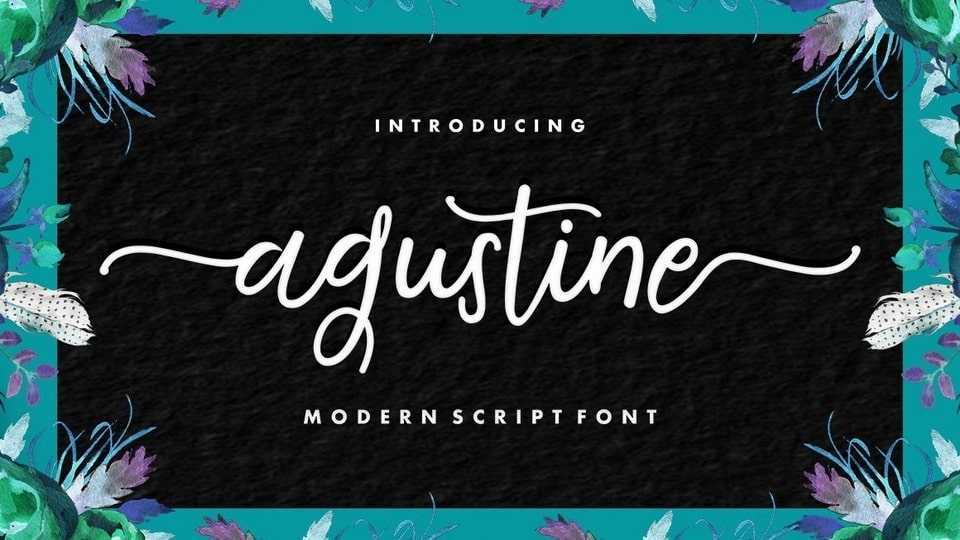
Download Agustine font, a lovely, modern calligraphic script. It features dynamic and pretty swashes and can be used for various purposes, such as titles, signatures, logos, wedding invitations, and so on.